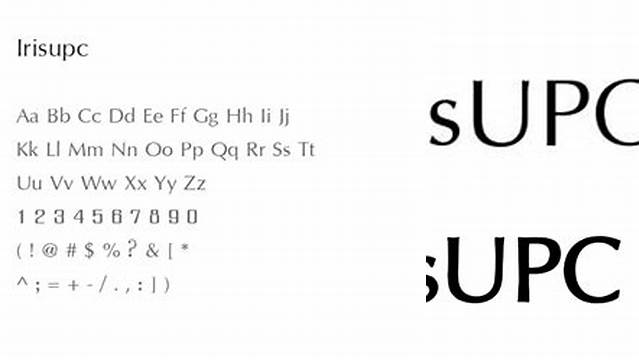
Hey guys! Ever stumbled upon a font that just clicks? Well, let's dive deep into the world of IrisUPC, a font that might just be your next favorite. This comprehensive guide is here to break down everything you need to know about IrisUPC, from its unique characteristics to where you can snag it for free. So, buckle up and let’s get started!
What is IrisUPC?
IrisUPC is a font that has gained popularity for its distinctive style and readability. Often used in various design projects, it stands out with its clean lines and modern aesthetic. But what exactly makes IrisUPC so special? In this section, we'll explore its key features, design elements, and the overall appeal that makes it a go-to choice for many designers and creatives. Understanding the basics of IrisUPC free font will help you appreciate its versatility and how it can enhance your projects. The unique charm of this font lies in its ability to blend seamlessly into both formal and informal designs, making it a valuable asset in your font library. Its legibility, even in smaller sizes, ensures that your message is conveyed clearly, while its stylish appearance adds a touch of sophistication. Whether you're working on a branding project, a website design, or a simple poster, IrisUPC free font offers a balance of functionality and aesthetics that's hard to beat. Let's dive deeper into what makes this font tick and how you can make the most of it.
Key Features of IrisUPC
When we talk about IrisUPC free font, we're looking at a typeface loaded with features that set it apart. Think about it – what makes a font truly great? Is it just the way it looks, or is it also about its functionality? IrisUPC nails both! From its distinct letterforms to its exceptional readability, this font has a lot to offer. We’re going to break down the key features that make IrisUPC a standout choice for designers and anyone looking to add a touch of elegance to their projects. The versatility of IrisUPC free font is one of its most significant assets. It’s not just a pretty face; it's a workhorse that can handle a variety of design needs. The font’s clean and modern lines make it perfect for everything from website headers to body text. Its balanced design ensures that it remains legible even at smaller sizes, which is crucial for mobile-friendly designs and print materials. Additionally, IrisUPC's unique letterforms add a touch of personality to your work, making it instantly recognizable and memorable. Let's explore these features in more detail and see why IrisUPC is more than just another font in the crowd.
Design Elements of IrisUPC
Alright, let's get into the nitty-gritty of IrisUPC free font's design elements. What makes this font visually appealing? Is it the curves, the lines, or maybe the overall structure? We're going to break down the specific design choices that contribute to IrisUPC's unique look and feel. Think about the details that make a font stand out – the serifs, the x-height, the contrast. All these elements come together to create a cohesive and attractive typeface. Understanding these design elements will not only help you appreciate the craftsmanship behind IrisUPC but also give you insights into how to use it effectively in your projects. The design of IrisUPC free font is characterized by its simplicity and elegance. The font features clean lines and a balanced structure, making it easy on the eyes and highly legible. Its modern aesthetic is achieved through subtle design choices that create a sophisticated look without being overly ornate. The spacing between letters, the weight of the strokes, and the overall proportions are carefully considered to ensure a harmonious appearance. These elements work together to make IrisUPC a versatile font that can be used in a wide range of design applications. So, let's dive into the specifics and see how each element contributes to the overall charm of IrisUPC.